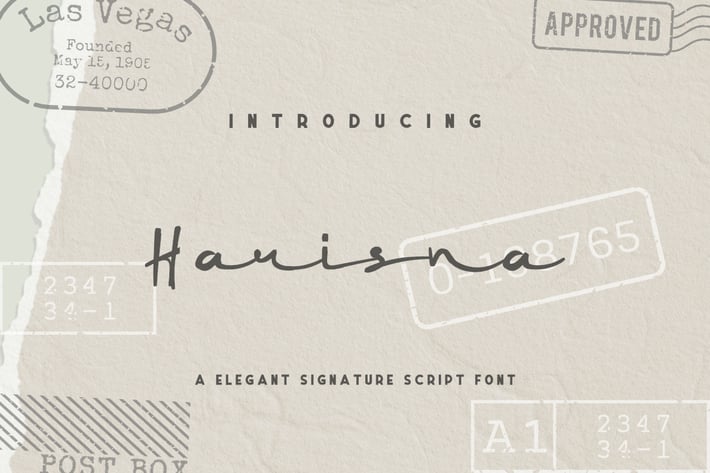
Harisna a Elegant Signature Script Font
Harisna a Elegant Signature Script Font, This font is made with a high premium quality level which you can use as flyers, quotes, posters, banners, packaging, merchandise, logotypes and much more.